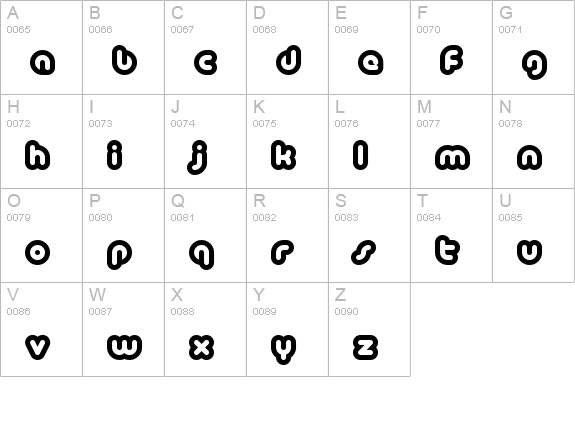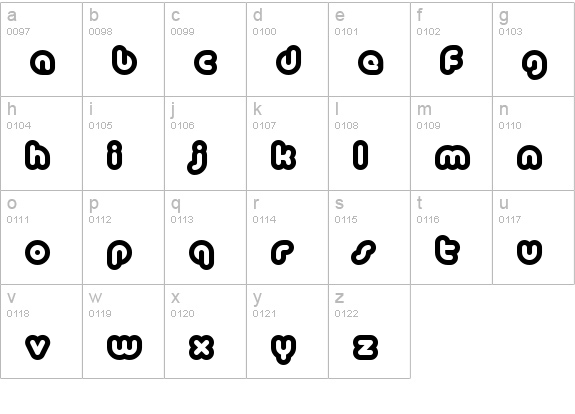
Baubau Font Details
Baubau font is a modern and stylish typeface that exudes elegance and sophistication. With its sleek lines and contemporary design, Baubau is perfect for a wide range of creative projects, from branding to editorial design. This versatile font is sure to make a statement and elevate your designs to the next level. The best part? Baubau font is completely free to download at FontsMarket.com. Whether you're a designer looking to add a new font to your collection or a business owner in need of a fresh look for your branding, Baubau font is the perfect choice. Don't miss out on this fantastic opportunity to enhance your projects with this stunning font, available for free at FontsMarket.com.